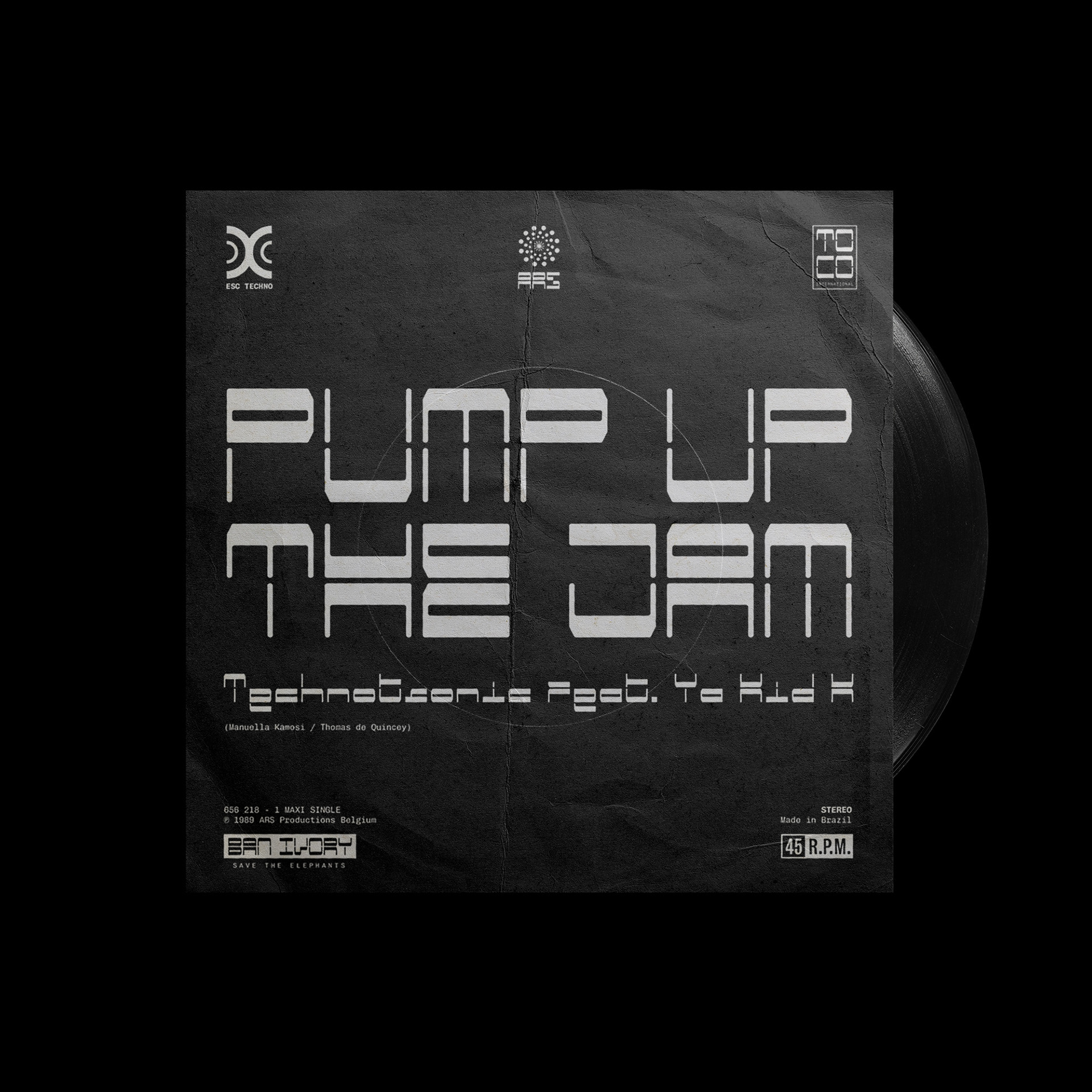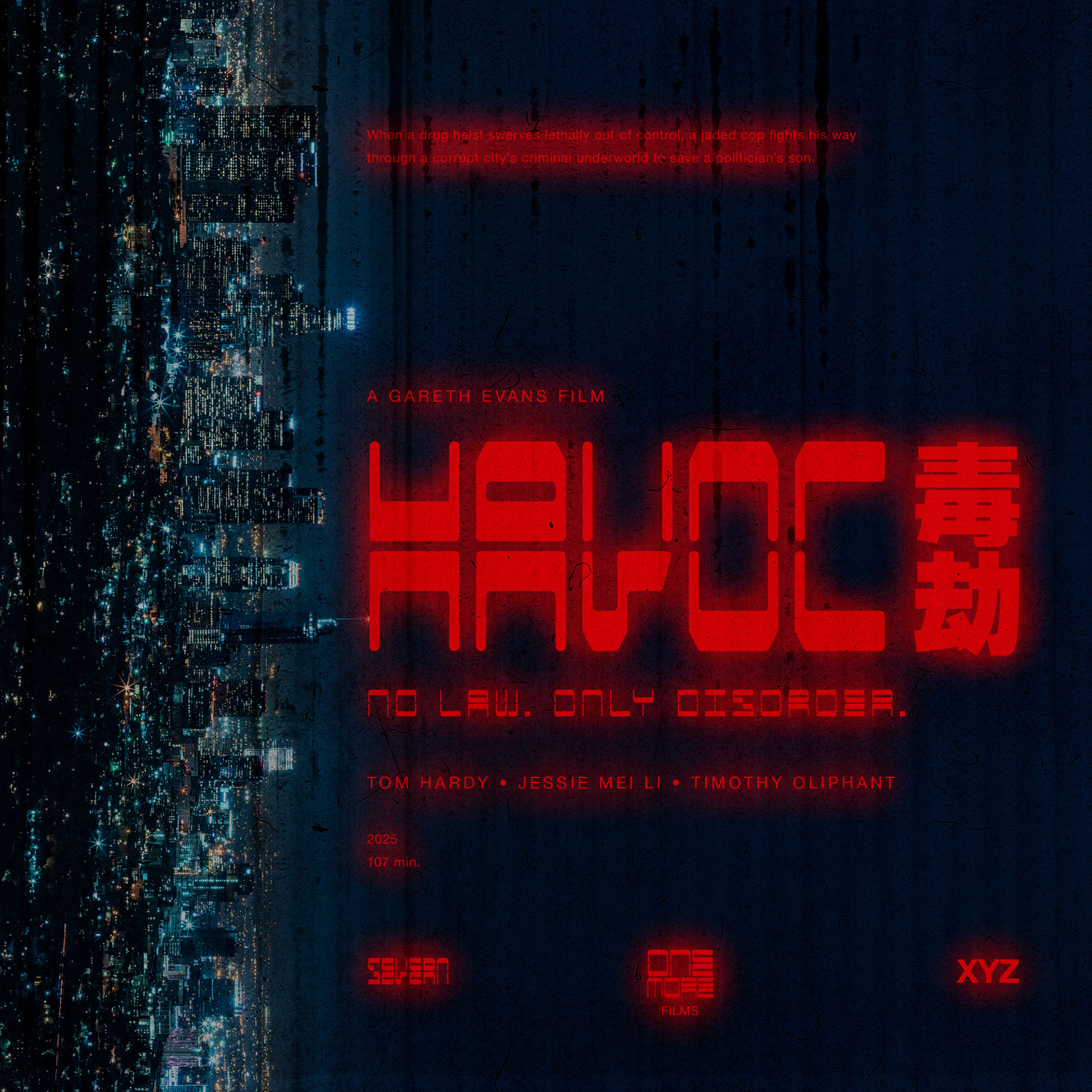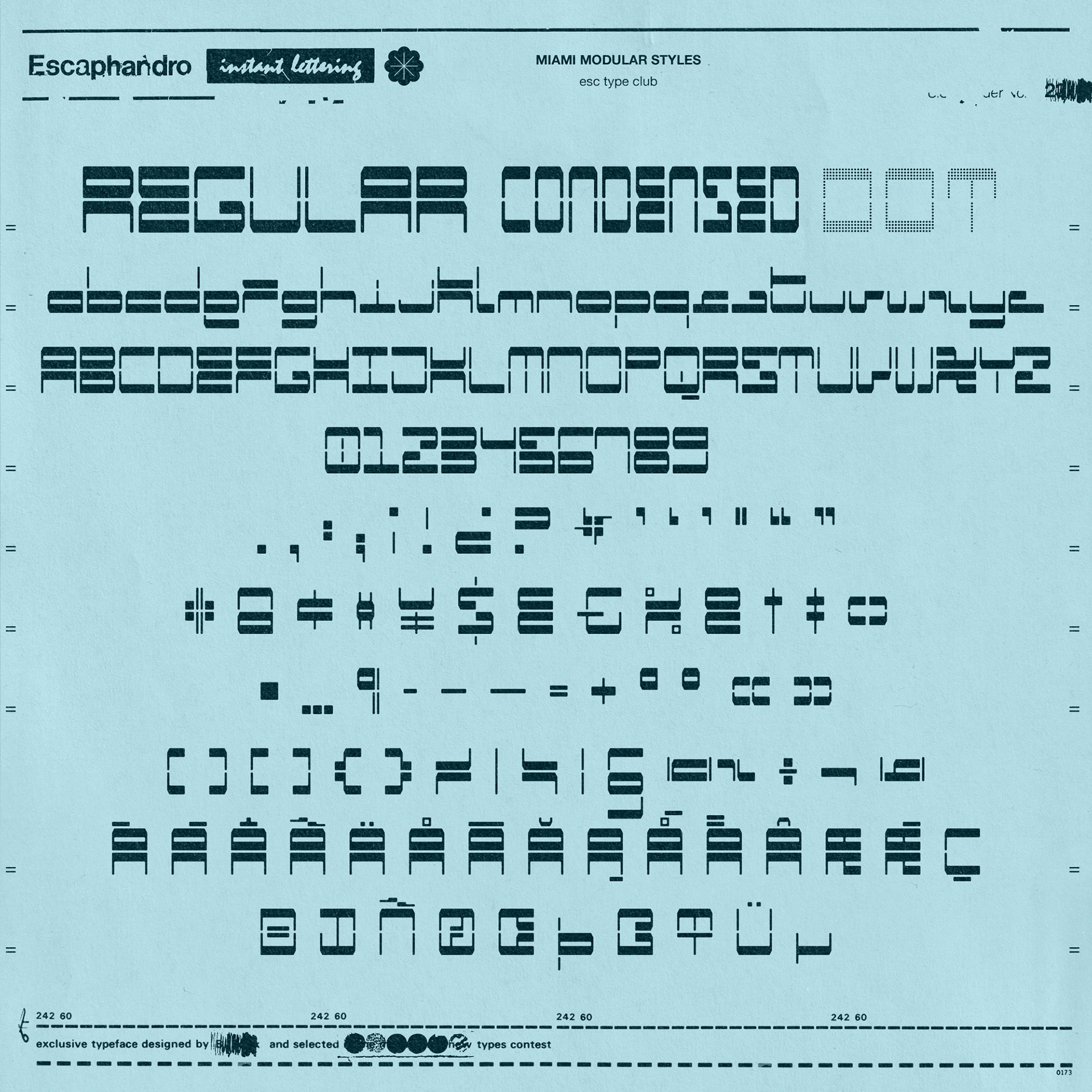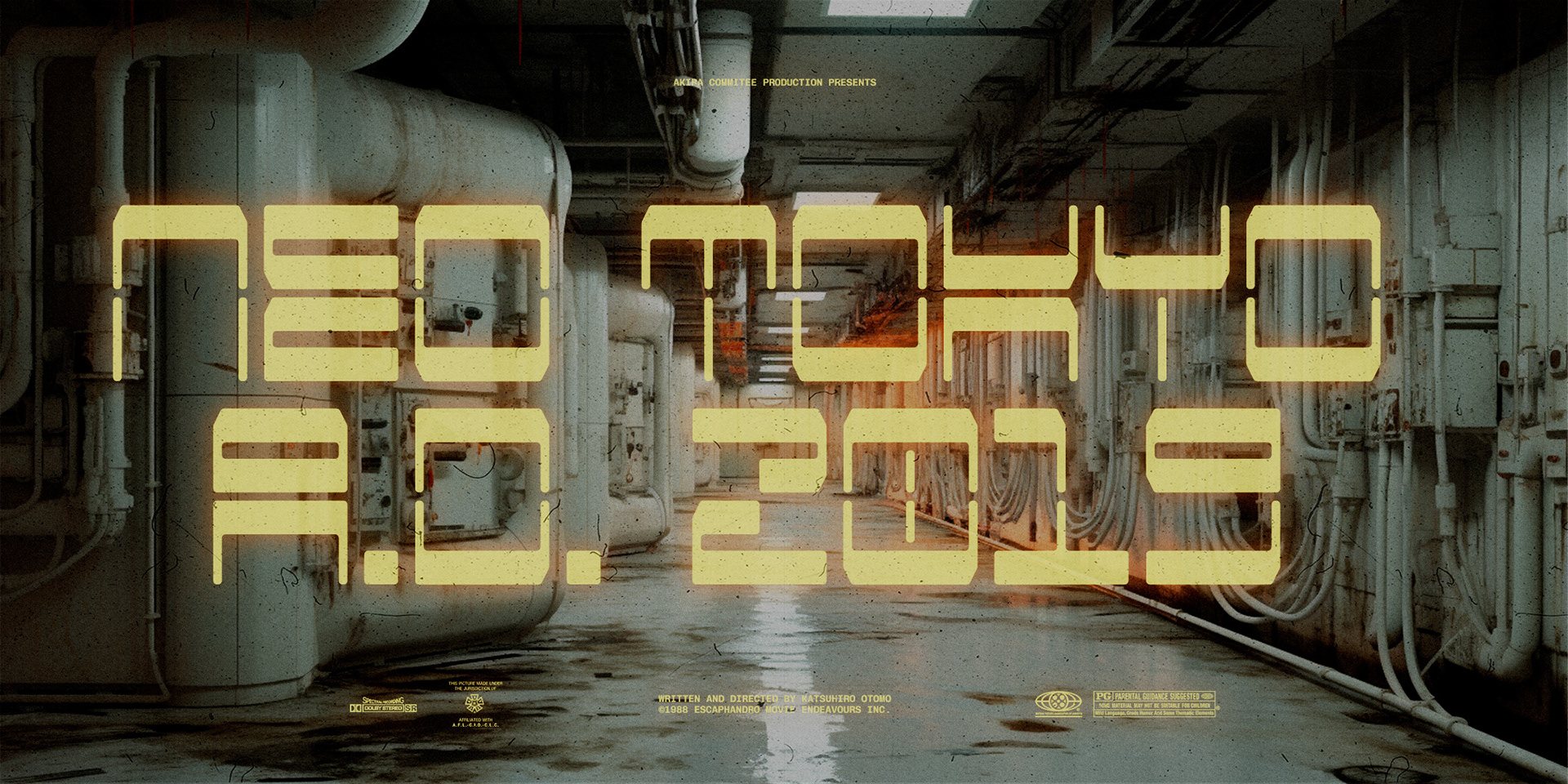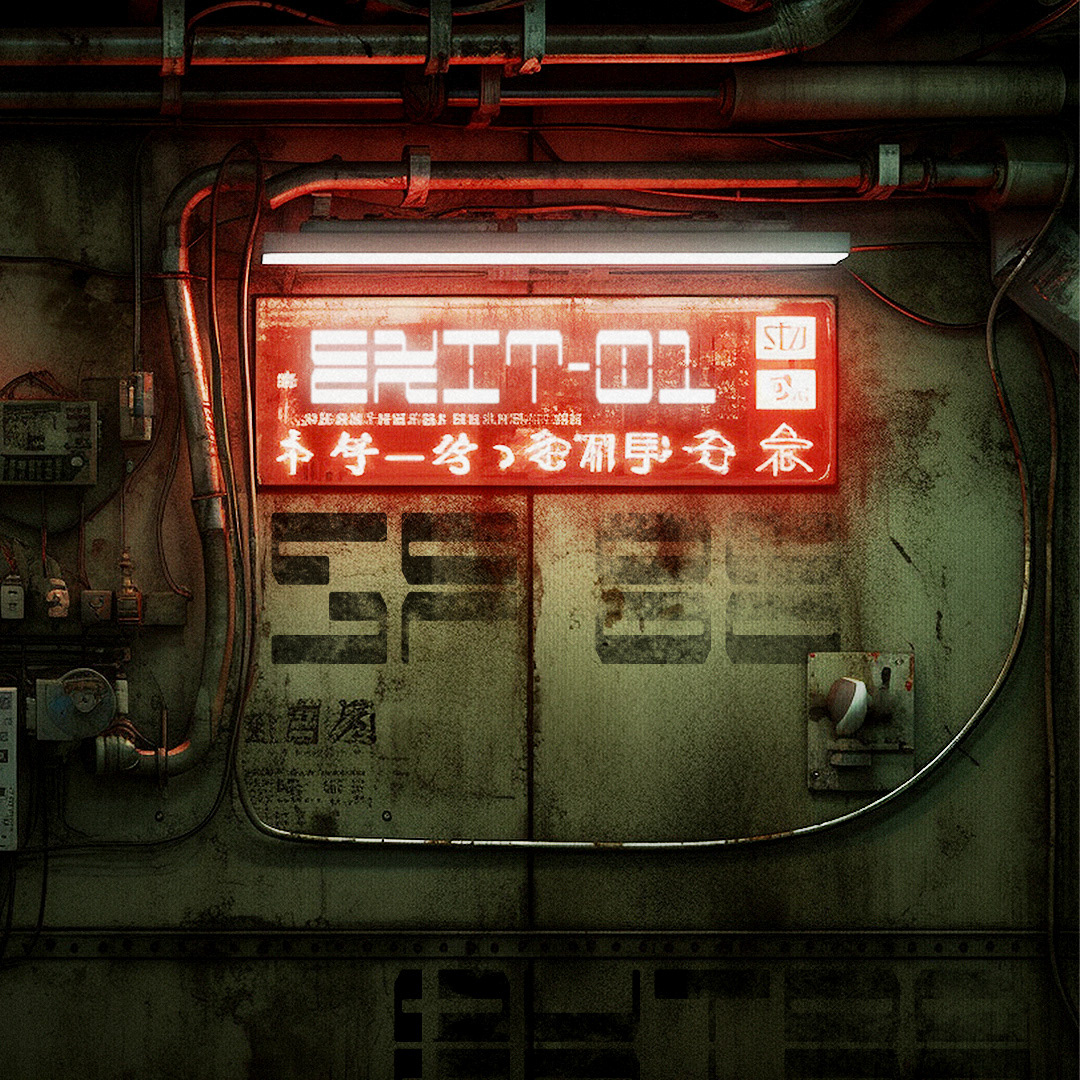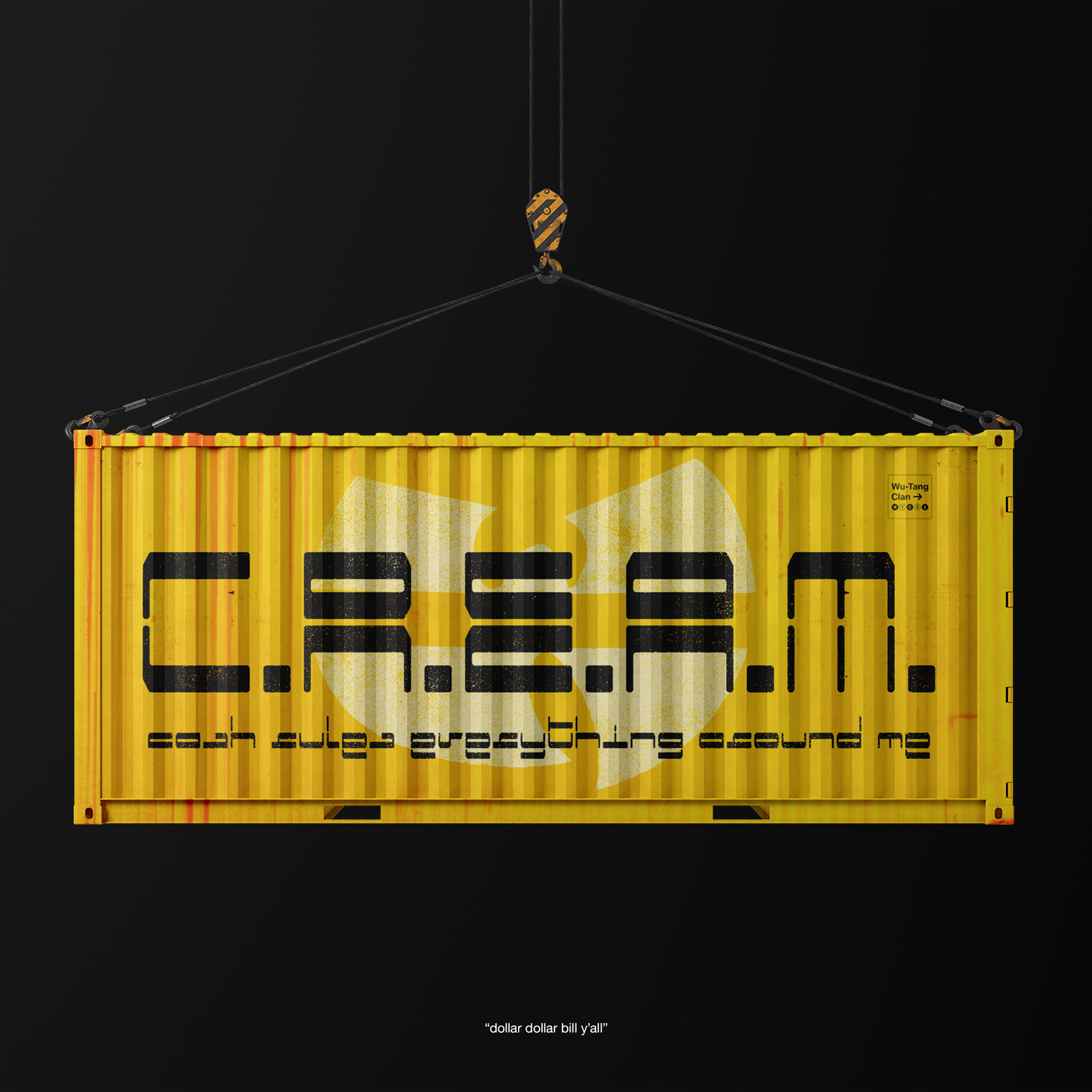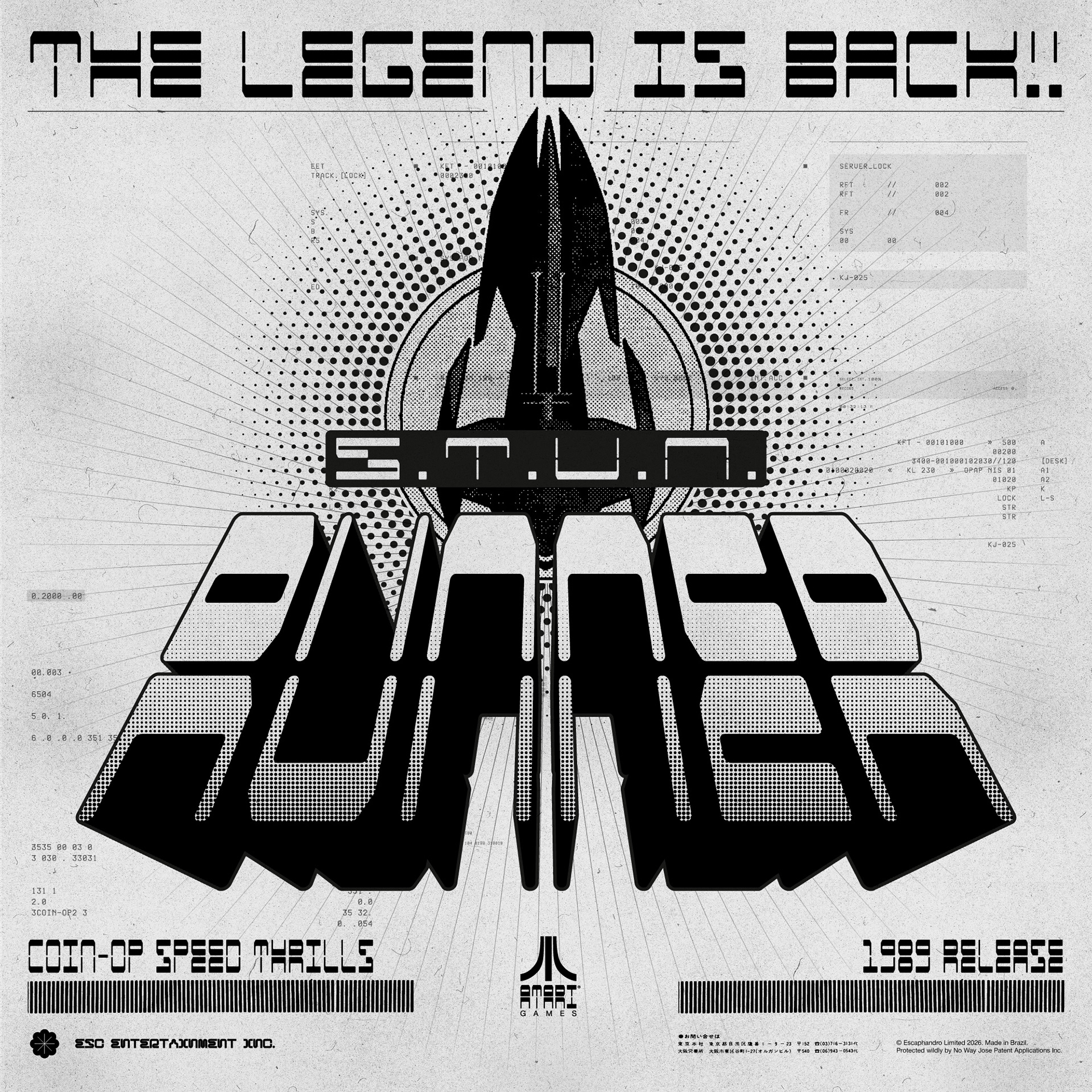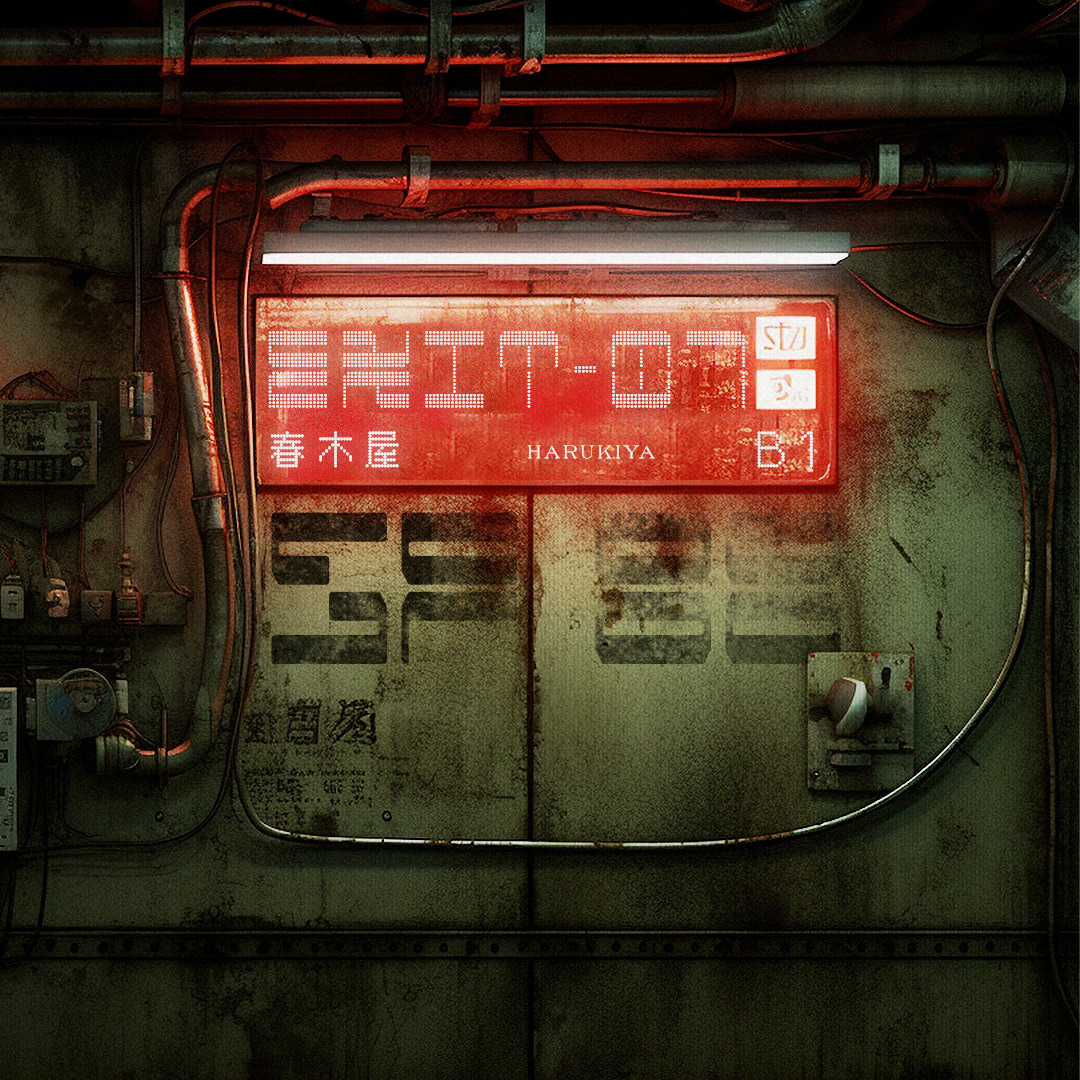
Miami Modular is an exercise in geometric typography based on retro-futuristic scifi themes and modernist graphic design. Ideal for large-size applications and logotype construction. Three different weights available.